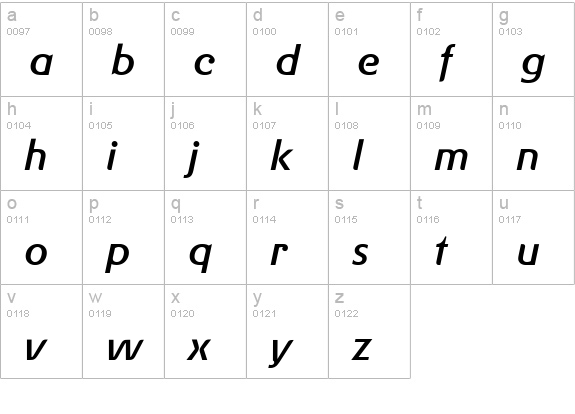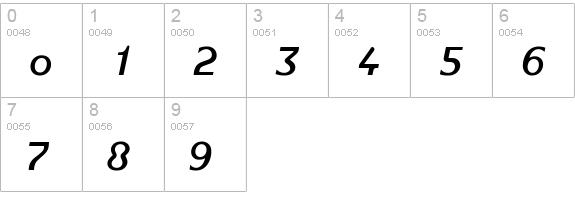
Gerstner Original Italic is a distinctive, italic variant in the Gerstner typeface family \xE2\x80\x94 well suited to design and typography projects.
Gerstner Original Italic is a classic and elegant font that exudes sophistication and style. With its unique slanted design and refined curves, this typeface is perfect for adding a touch of flair to any project. Whether you're working on a formal invitation, a sleek logo, or a stylish publication, Gerstner Original Italic is sure to make a lasting impression. What's even better is that Gerstner Original Italic is available for free download at FontsMarket.com. This means you can easily access this premium font without any cost, making it a valuable addition to your font collection. Don't miss out on the opportunity to elevate your designs with the timeless beauty of Gerstner Original Italic. Download it today and let your creativity shine!